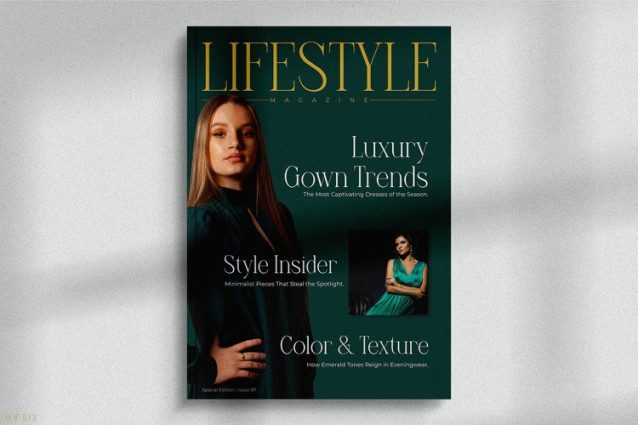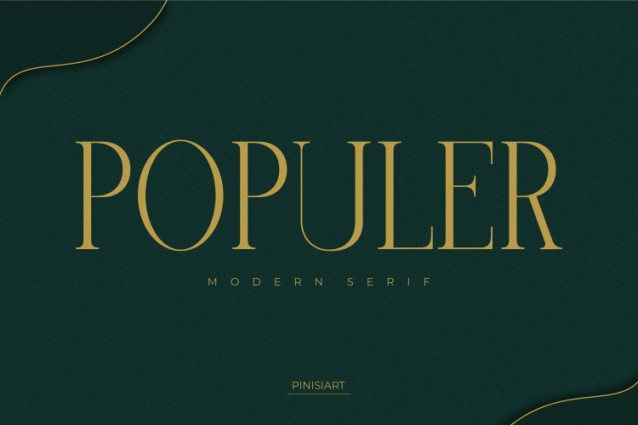
Populer Font
Populer font brings a bold, sophisticated, and trendy tone to your designs. This elegant serif font features tall, confident strokes with smooth curves and premium proportions. At first glance, Populer elevates your layouts with a timeless charm that commands attention without being obtrusive. What’s more, it combines minimalist precision with classic typographical cues, making it the perfect tool for modern storytelling, especially on social media.
Unlike typical serif fonts, Populer brings a unique touch to your brand’s headlines and content. Its beautiful high-contrast strokes create a custom feel, while consistent spacing makes it easy to read. Whether you’re creating clean Instagram posts, editorials, or high-end product packaging, Populer brings elegance to every word.
For example, many content creators use Populer for powerful quotes, product descriptions, or digital banners that need to set an elegant tone. Designers also love the uppercase character set for its ability to anchor logos and headlines with authority. Plus, lowercase balances the design by providing smooth readability—ideal for subtitles or captions. So, Populer not only decorates your message, it also makes it stand out.